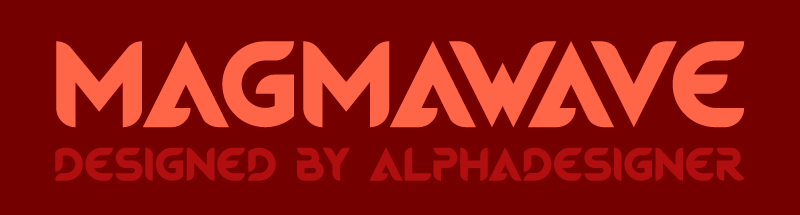
Preview and download Magmawave Caps Font. Created by alphadesigner in Techno Sci-fi styles with Free for personal use license.
MagmaWave Caps is a digital OpenType font reinventing the Art Deco typographic aesthetic for the digital age. You can review more samples on its presentation page: http://alphadesigner.com/magmawave-font/ |